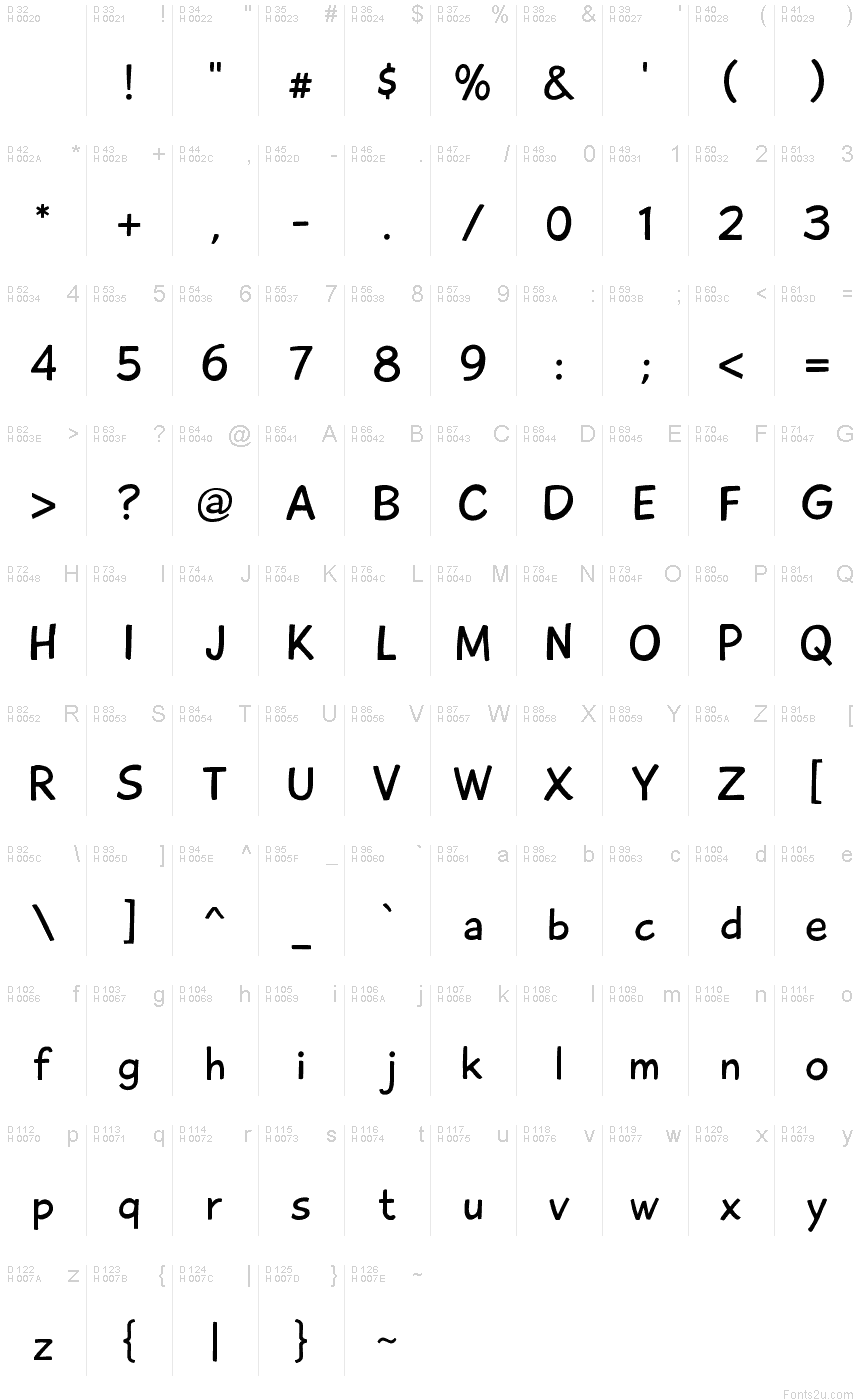
Playtime With Hot Toddies from Fontype Freebies is a free handwritten display font with a loose, cheerful build. The letters have softly uneven strokes, rounded curves, and gently shifting proportions. The irregular forms look drawn with a broad marker.
Children's packaging is its clearest fit, since the approachable lettering feels lively without relying on ornate details. It also suits party invitations, classroom posters, and casual game graphics, especially when the wording should resemble hand lettering. The friendly shapes are aimed squarely at young audiences and family-centered projects.